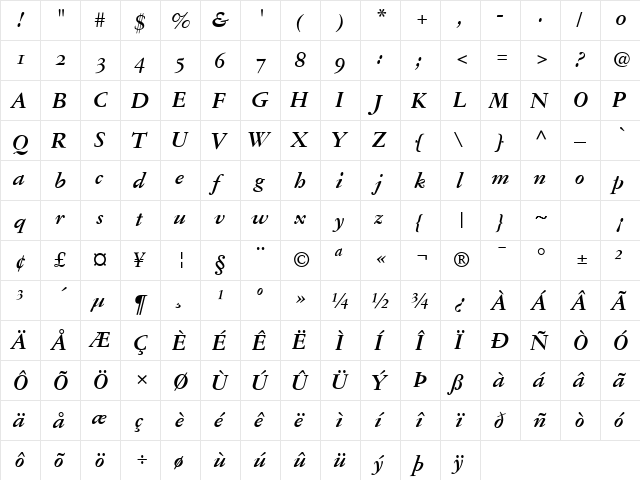
Garamond Reprise OldStyle SSi Bold
Design Context for Garamond Reprise OldStyle SSi Typeface
Garamond Reprise OldStyle SSi carries the refined structure of traditional serif typography, with bracketed terminals and considered proportions that communicate credibility and craft. The heavy weight commands attention and anchors typographic hierarchies.